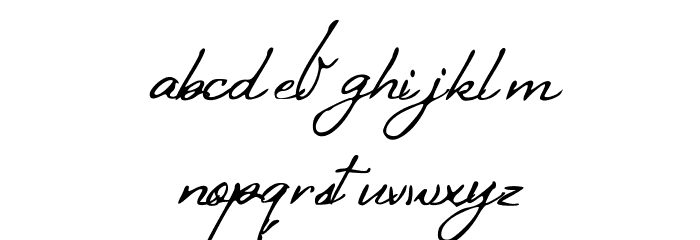
BlueSkies Font
BlueSkies Description
This elegant script font features fluid, cursive strokes that mimic the natural flow of handwriting. The uppercase letters are characterized by their sweeping curves and elongated forms, giving a sense of sophistication and grace. The lowercase letters maintain a consistent style, with smooth connections between characters, enhancing readability while preserving an artistic flair. The numbers and special characters are designed to complement the overall aesthetic, ensuring a cohesive look across all text elements. This font exudes a sense of elegance and is perfect for projects that require a touch of class and refinement.
A graceful script font with fluid, cursive strokes and elegant curves from Uncategorized fonts.
- Proposed Projects: Ideal for wedding invitations, elegant branding, personal stationery, and artistic projects.
- Overall Style: Elegant, Artistic
- Use Case: Logos, Invitations, Personal stationery